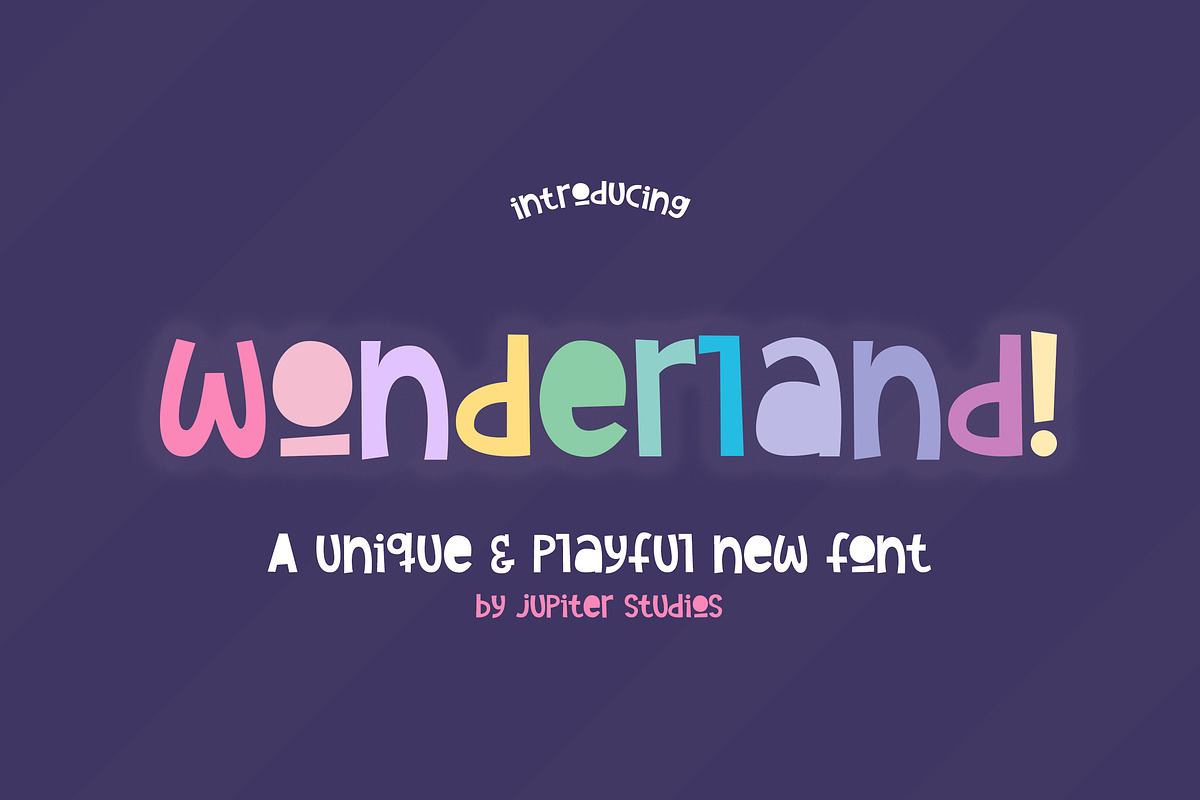
Wonderland Font Free Download
Wonderland Font Free Download is a dreamy, whimsical typeface that brings storybook magic to your designs. With its soft curves and playful details, Wonderland is ideal for fairytale-themed projects, children’s books, fantasy branding, event invitations, and charming packaging. It captures the essence of wonder, making any layout feel enchanted and imaginative.
Whether you're designing for a magical brand or crafting a themed social media post, Wonderland Font Free Download offers the perfect mix of elegance and fun. Its unique letterforms and fantasy-inspired vibe make it a standout choice for designers looking to add a sense of joy and creativity to their work.